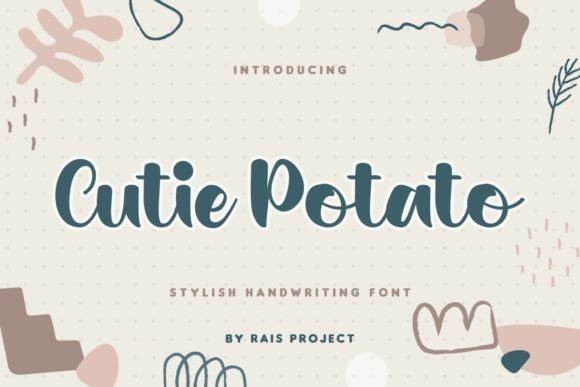
Introducing Cutie Potato Font: Your Creative Companion for Whimsical Designs
Embark on a delightful journey into the world of typography with Cutie Potato Font, a captivating script typeface that ignites imagination and adds a touch of whimsy to your creative projects. Inspired by the playful innocence of childhood, Cutie Potato captivates with its charming hand-drawn letterforms, reminiscent of sweet notes penned by a child's hand.
Step into a world where letters dance, twirl, and take on a life of their own. Cutie Potato's bold strokes and irregular shapes create a unique and enchanting personality, making it the perfect choice for branding, packaging, and product designs that demand attention. Whether you're crafting eye-catching posters, designing vibrant invitations, or creating playful social media graphics, Cutie Potato is your trusted companion, injecting a dose of fun and delight into every project.
As a script font, Cutie Potato excels in capturing the essence of handwritten messages, adding a personal and heartfelt touch to your designs. Imagine your audience's delight as they receive a handwritten note or invitation adorned with the charming characters of Cutie Potato. Its playful style instantly evokes a sense of nostalgia, bringing back memories of childhood and carefree days.
With Cutie Potato, your creative possibilities are boundless. Its versatility extends from crafting whimsical logos and branding materials to creating enchanting posters and flyers. Unleash your imagination and let the playful spirit of Cutie Potato elevate your designs to new heights of creativity.
Don't settle for ordinary fonts that blend into the background. Embrace the extraordinary with Cutie Potato and watch your designs come alive with personality and charm. Let your imagination soar, explore the limitless possibilities, and create masterpieces that resonate with your audience.